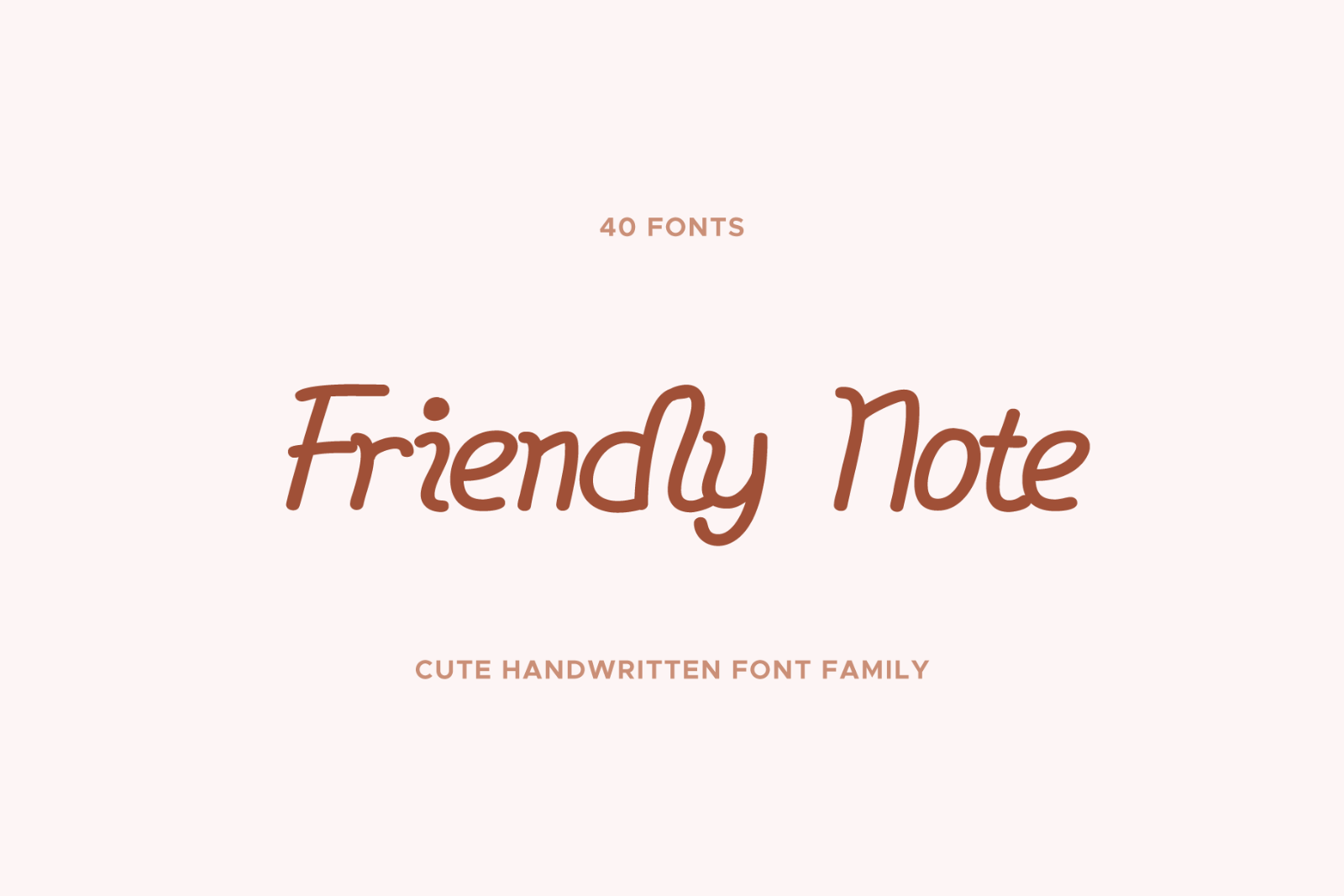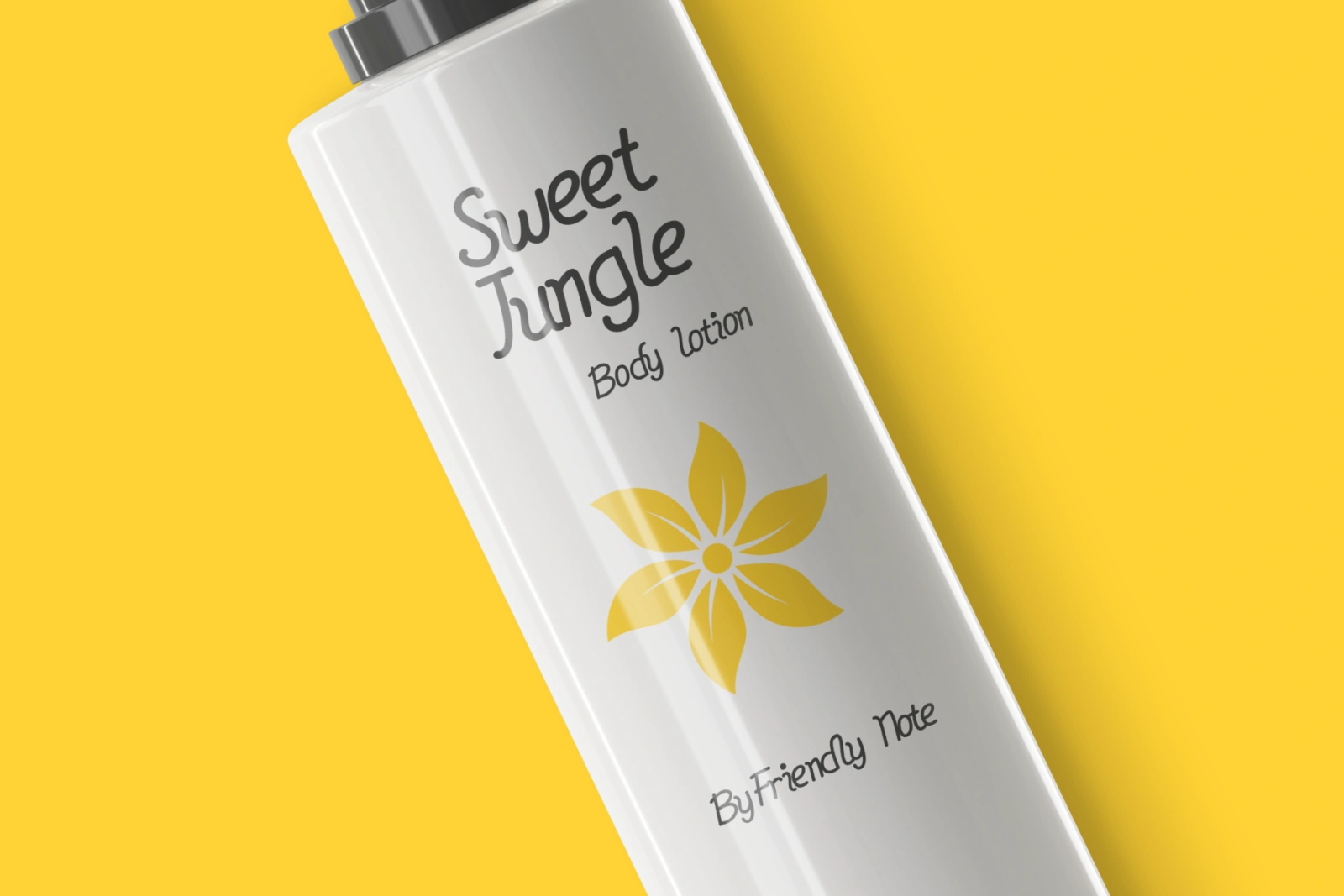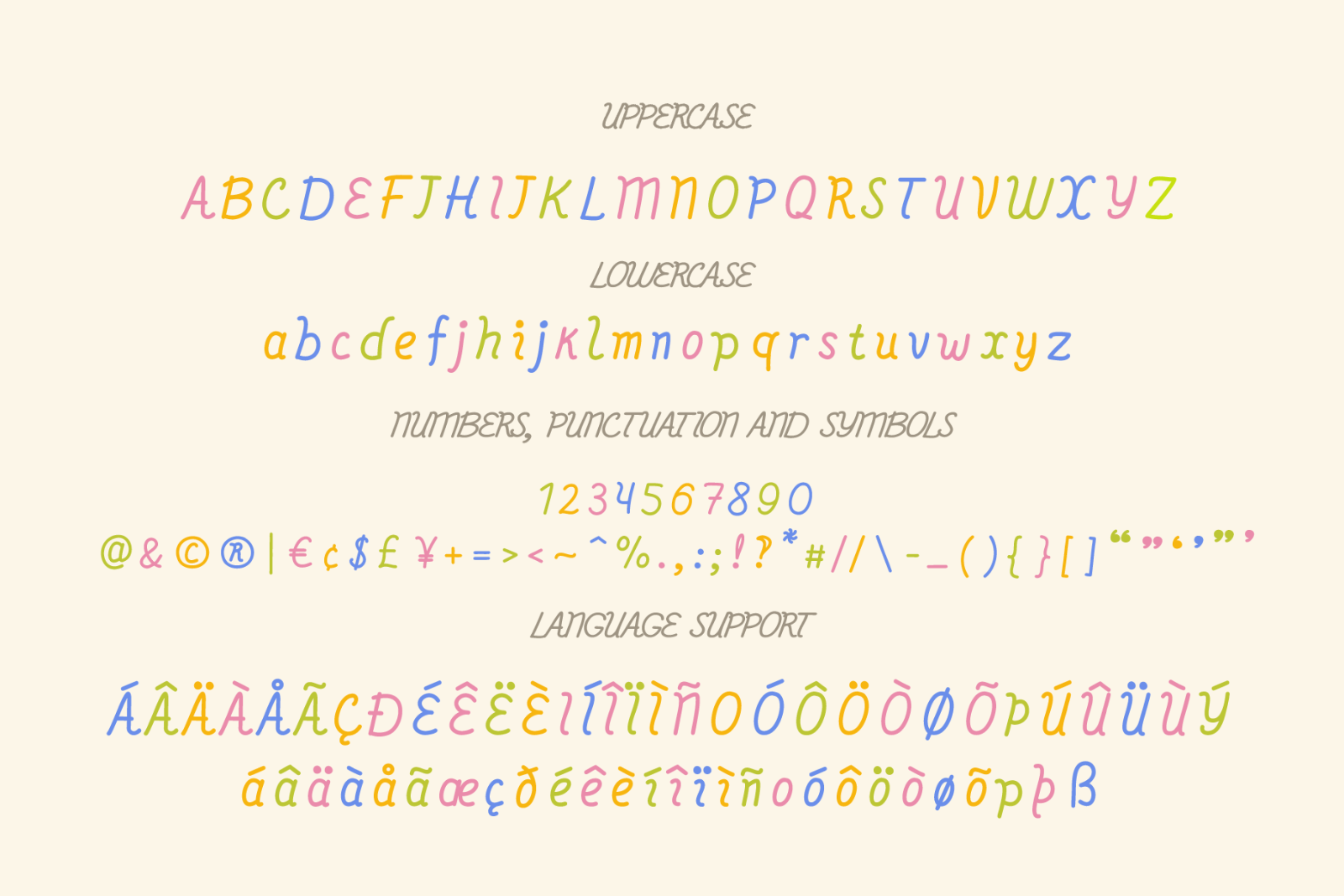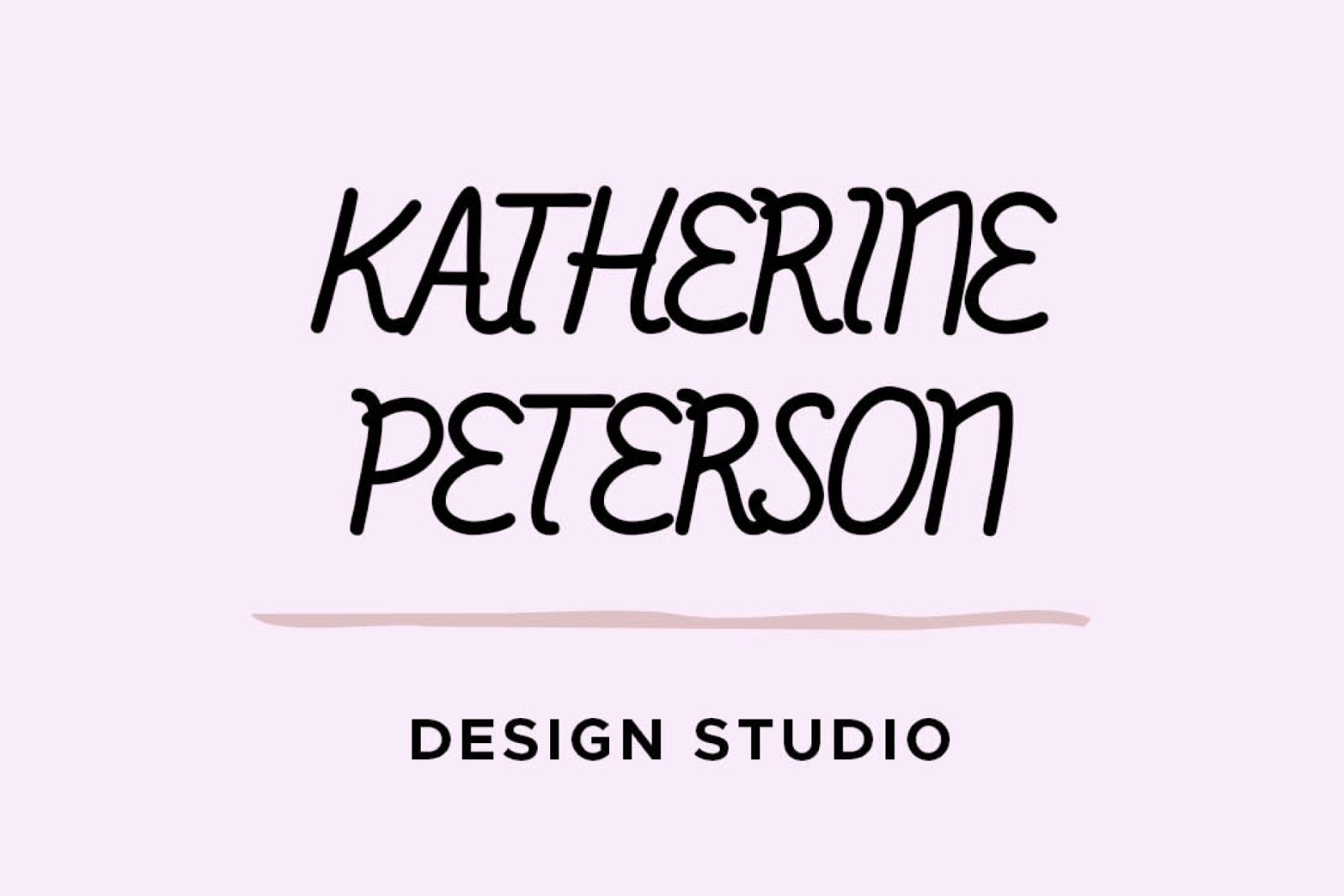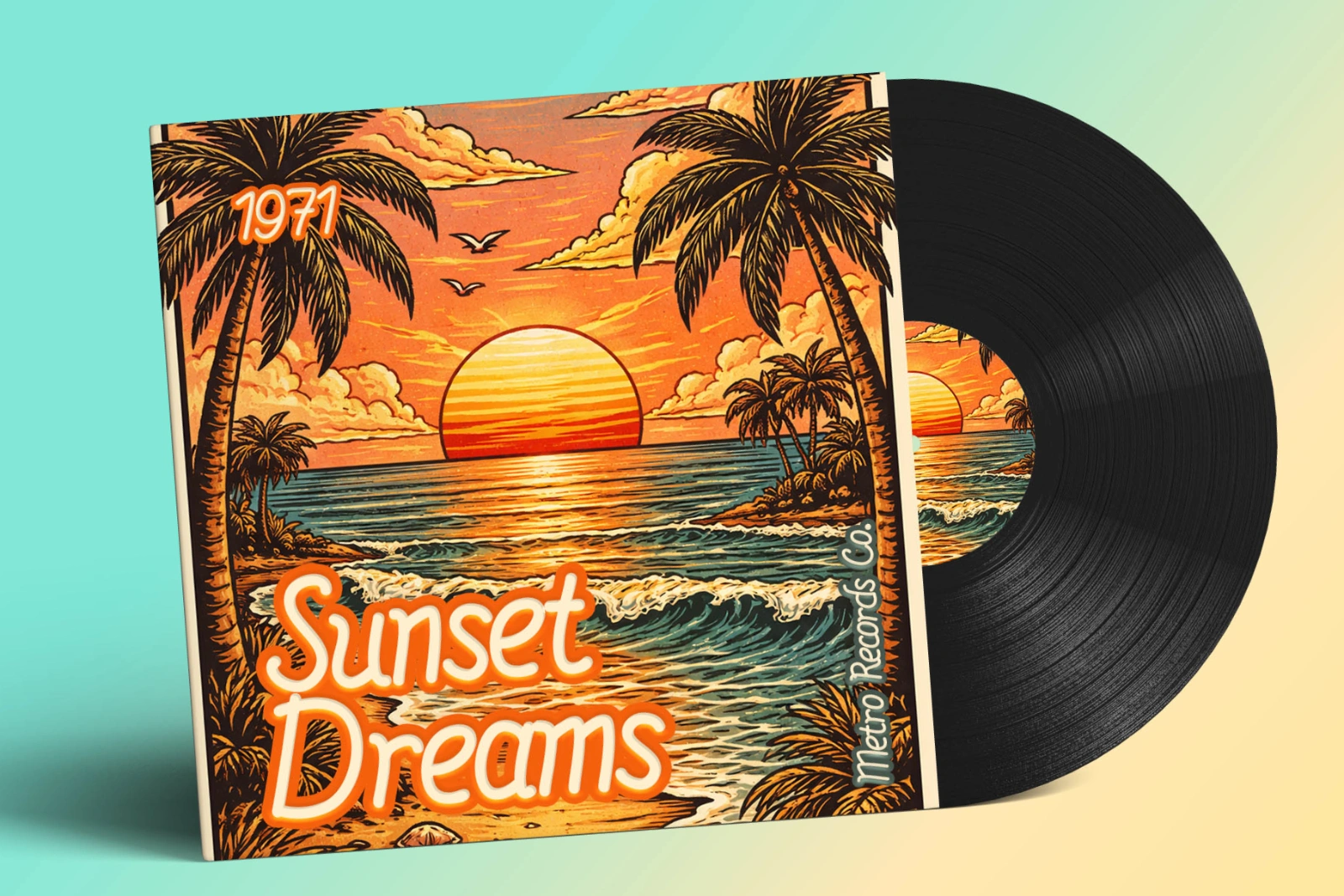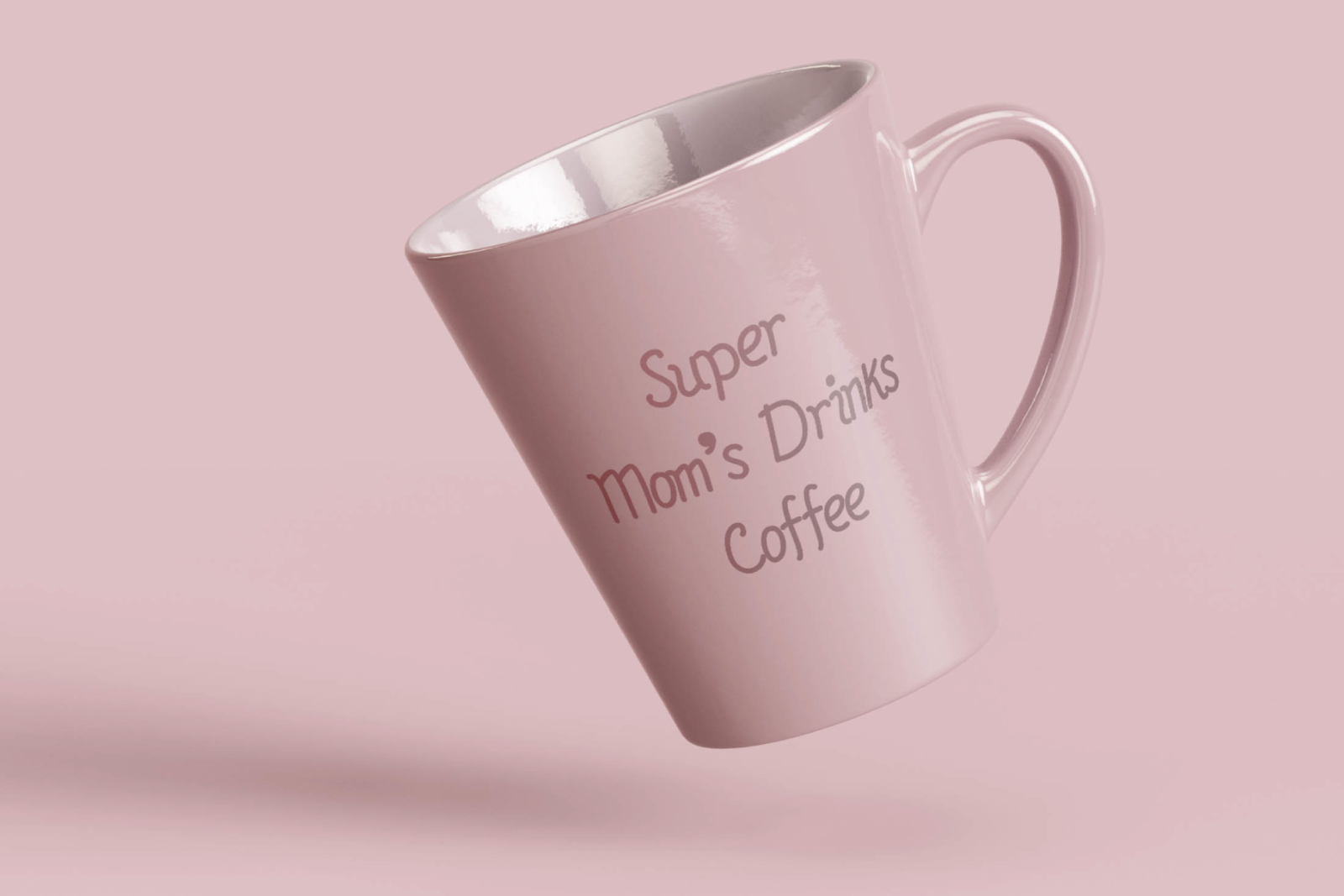
Friendly Note is a delicate handwritten cursive typeface crafted with thin, flowing strokes and a natural pen rhythm. Designed to capture the warmth of personal handwriting, it blends elegance with approachability—perfect for heartfelt messages, branding, invitations, packaging, social media graphics, and editorial accents.
Extensive Language Support: Cyrillic & Latin
Friendly Note supports 117 languages, including major Latin-based languages such as English, French, German, Spanish, Portuguese, Italian, Dutch, Swedish, Norwegian, Danish, Finnish, Polish, Czech, Hungarian, Romanian, Irish, Icelandic, Maltese, Indonesian, Malay, Swahili, Zulu, Xhosa, Afrikaans, and many more—making it a versatile choice for global communication and multicultural design projects.
Comprehensive Style Family
Friendly Note comes in a wide range of expressive styles to match different creative moods:
• Regular & Italic – Clean and naturally flowing
• Outline & Outline Italic – Light, airy contour versions
• Brush Series – Soft, hand-painted energy
• Cut Series – Sharper, crafted edges
• Eroded Series – Subtle distressed texture
• Grit Series – Gently roughened character
• Ink Series – Classic pen-written feel
• Rough Series – Organic, textured strokes
• Rust Series – Vintage-inspired wear
• Scratch Series – Edgy, expressive texture
• Worn Series – Softly aged personality
Each style includes Regular, Italic, Outline, and Outline Italic variations—giving designers maximum flexibility for layering, contrast, and creative experimentation.
Whether you’re designing a romantic wedding invitation, a friendly brand identity, a cozy café menu, or expressive social content, Friendly Note delivers charm, sincerity, and handcrafted beauty in every letter.